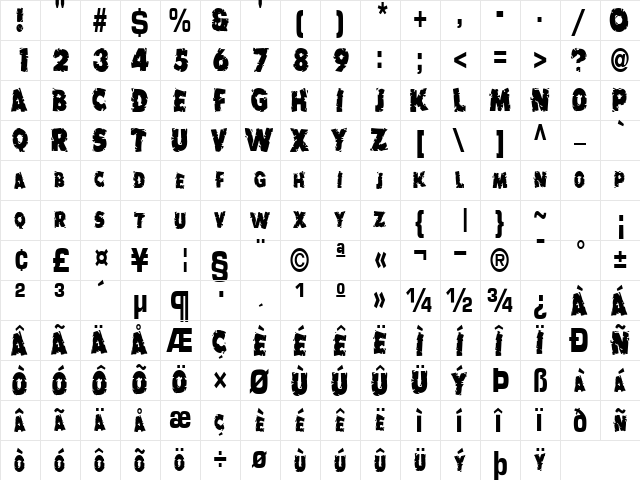
Badly Regular Font Preview
Badly Regular
Badly Regular Font Details
Design Context for Badly Typeface
Badly is a composed and adaptable typeface that performs quietly and consistently across a wide range of design contexts.